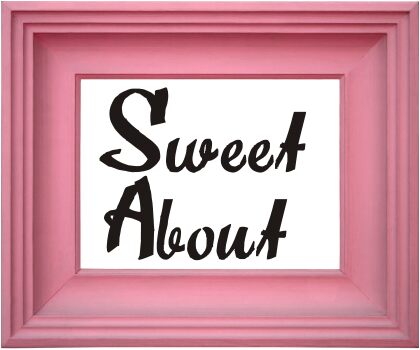
Sweet About by Paulo W is a free brush script with oversized capitals, sharp stroke endings, and a lively shift between broad marks and fine connecting lines. The uneven contours and compressed lowercase forms give the lettering the quick, assertive look of hand-painted sign work.
Packaging is its strongest medium, especially for hot sauce labels and street-food branding, while the same restless forms suit gig posters and album covers. It speaks most directly to independent food and music brands.